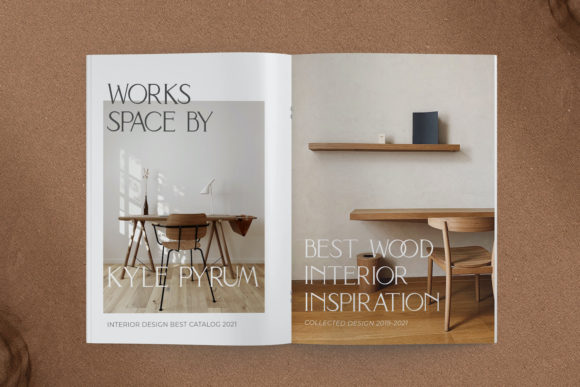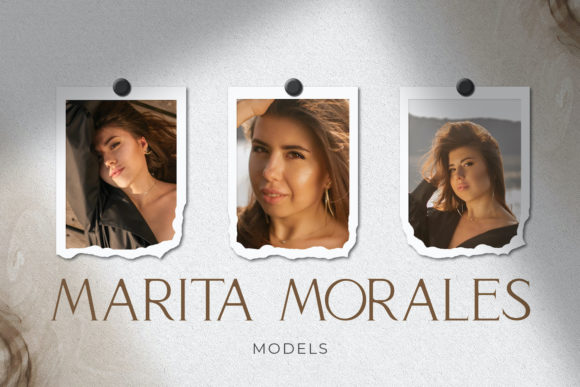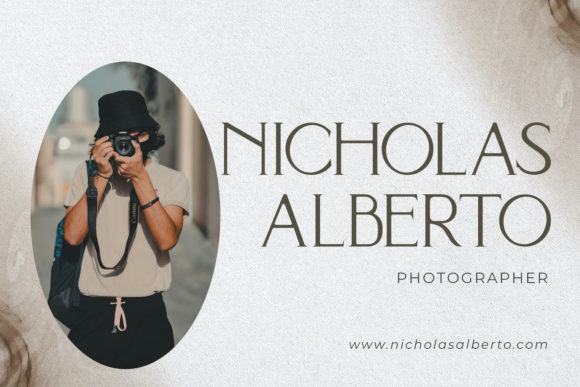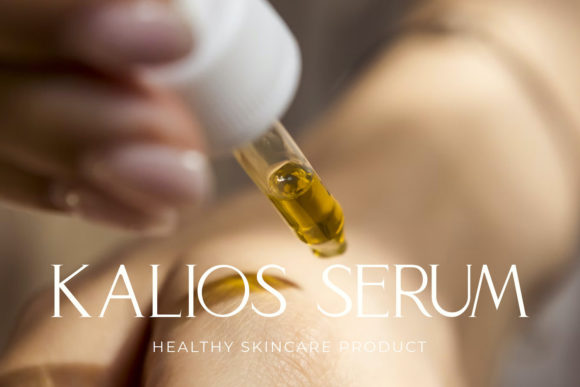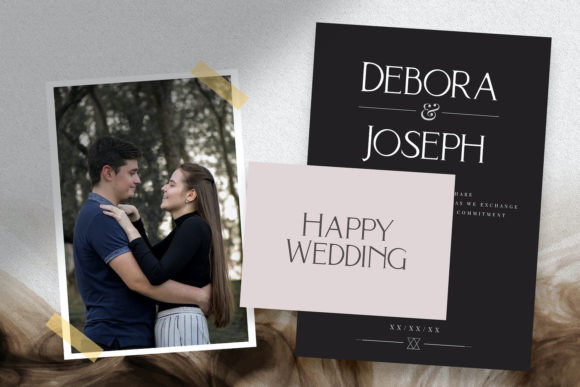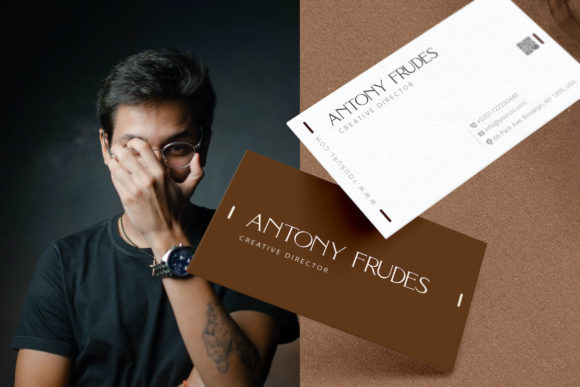
The Perfect Match for Your Creative Designs
Have you ever been working on a project, pouring your heart and soul into every detail, only to feel like something is missing? You’ve tried different fonts, colors, and layouts, but nothing seems to capture the essence of your vision. That’s where the Bhineka Font comes in – a stunning serif font that adds an air of sophistication and elegance to any design.
Developed with versatility in mind, the Bhineka Font is perfect for a wide range of projects, from elegant business cards to captivating advertisements. Its authentic style makes it a valuable asset for designers looking to create truly memorable designs. Whether you’re a seasoned pro or a budding artist, the Bhineka Font is sure to elevate your creative game and leave a lasting impression on your audience.
Bhineka Font Key Features
- Unique Characteristics: The Bhineka font features a unique blend of traditional and modern elements, with intricate details and subtle nuances.
- Font Styles: Available in Regular, Bold, and Italic styles, providing flexibility for various design applications.
Bhineka Font Review
I recently had the chance to work with the Bhineka font, and I must say it’s a unique and interesting choice for any design project. ✨ One of the things that works well about this font is its cultural significance. It’s an Indonesian font that showcases the country’s rich cultural heritage, which is perfect for any project that requires a touch of local flavor.
- ✨ The font’s cultural significance is a major plus, making it a great choice for projects that require a unique touch.
- ✨ The font’s bold and playful feel makes it perfect for headings and titles.
- ✨ The font’s availability in multiple weights and styles makes it versatile and easy to use.
However, there are some limitations to consider. ⚠️ The font may not be suitable for projects that require a more formal or professional tone, as its bold and playful feel may come across as unprofessional. Additionally, the font may not be as widely recognized or supported as more popular fonts, which could lead to compatibility issues in certain software or platforms.
Overall, I would say that the Bhineka font is a great choice for projects that require a unique and cultural touch. While it may have some limitations, its bold and playful feel makes it perfect for headings and titles, and its availability in multiple weights and styles makes it versatile and easy to use.
For optimal results, use Bhineka Font in conjunction with a sans-serif font for better readability.
– Creating multilingual documents or presentations
– Designing logos or brand identities
– Adding cultural flair to digital art
Comparison to Bhineka Font: While Bhineka Font has a more traditional and classic feel, Pacifico has a more modern and refined look. Pacifico is ideal for designs that need a more contemporary touch.
Comparison to Bhineka Font: Great Vibes has a more relaxed and casual feel compared to Bhineka Font, which is more formal and traditional. Great Vibes is ideal for designs that need a more laid-back and approachable tone.